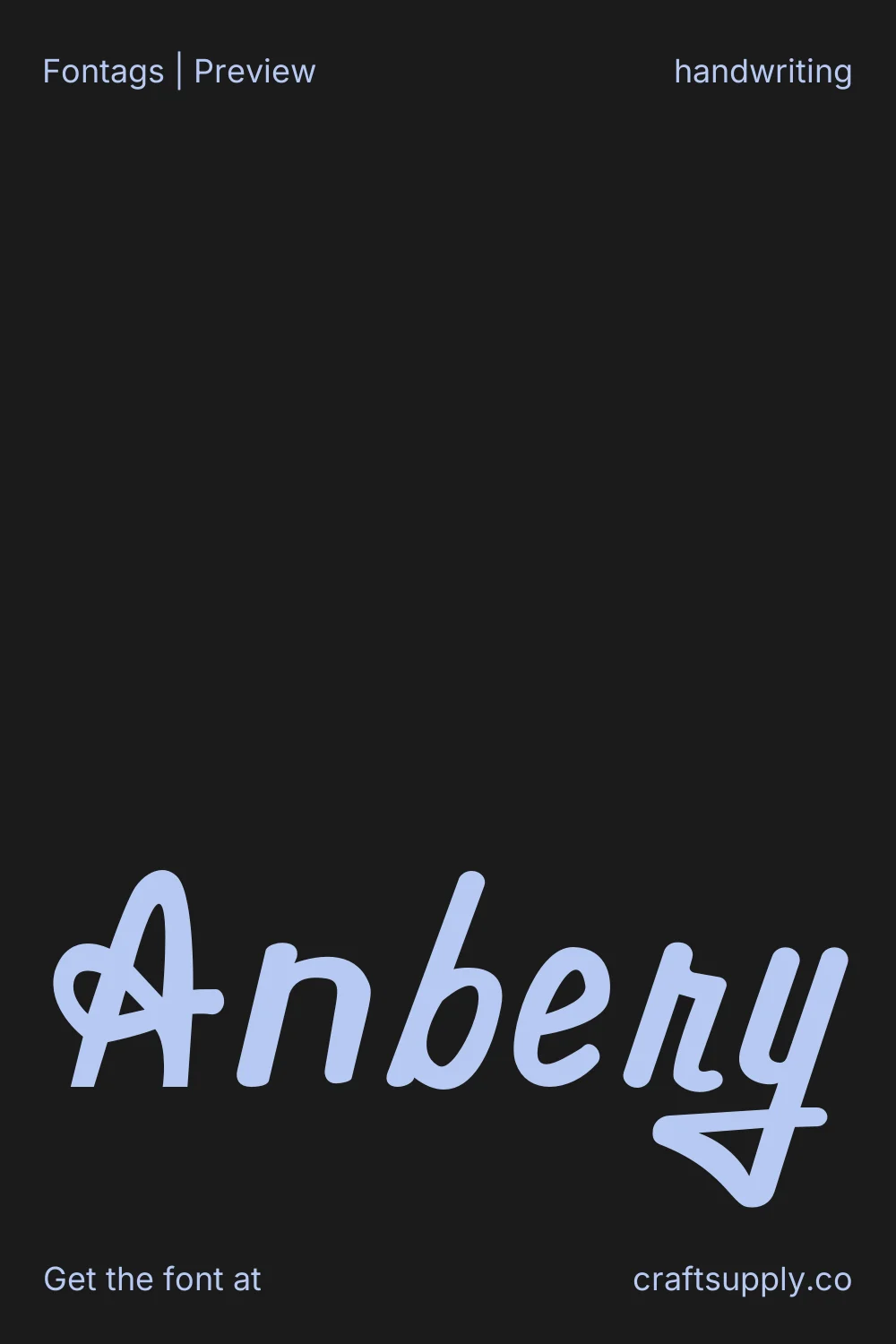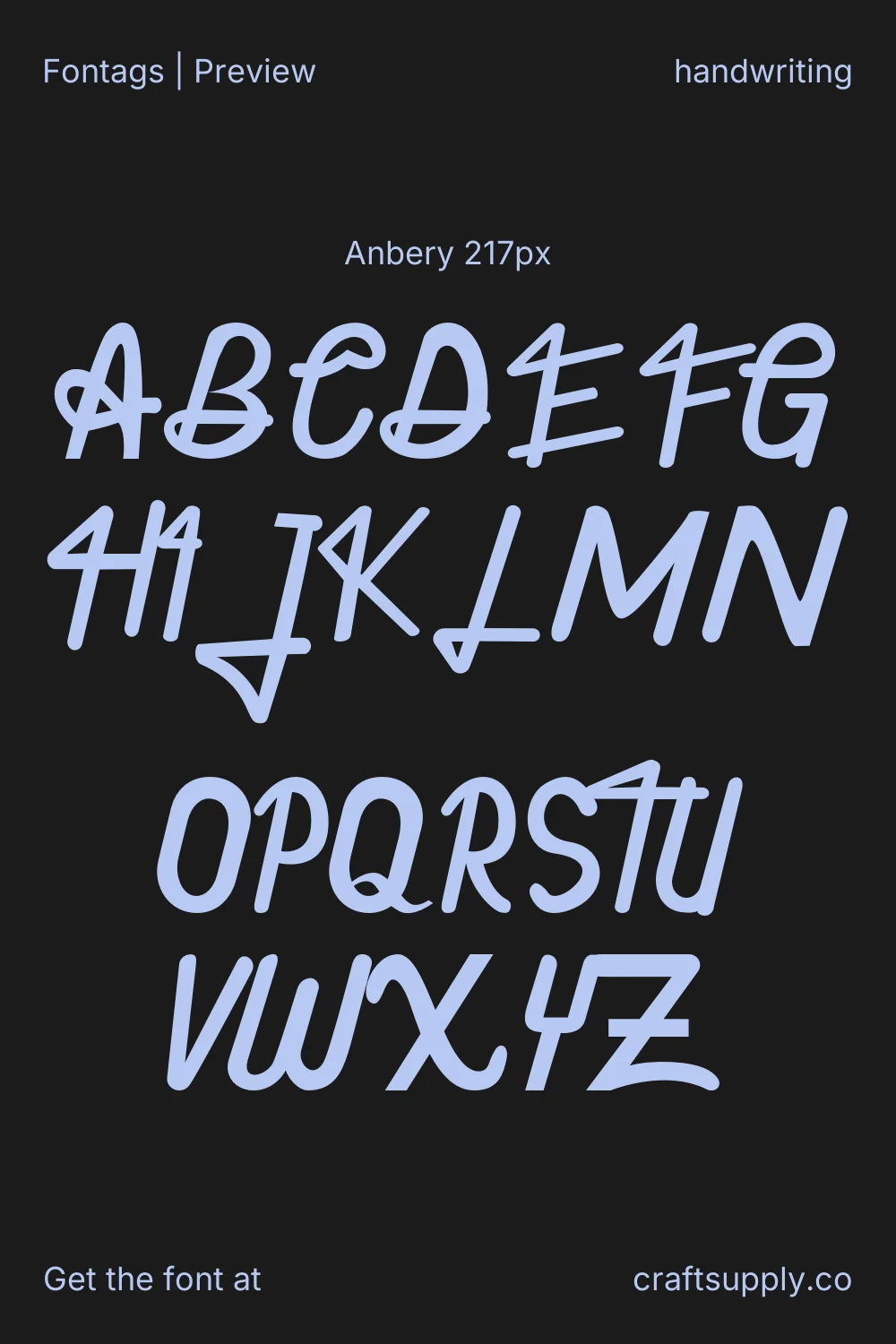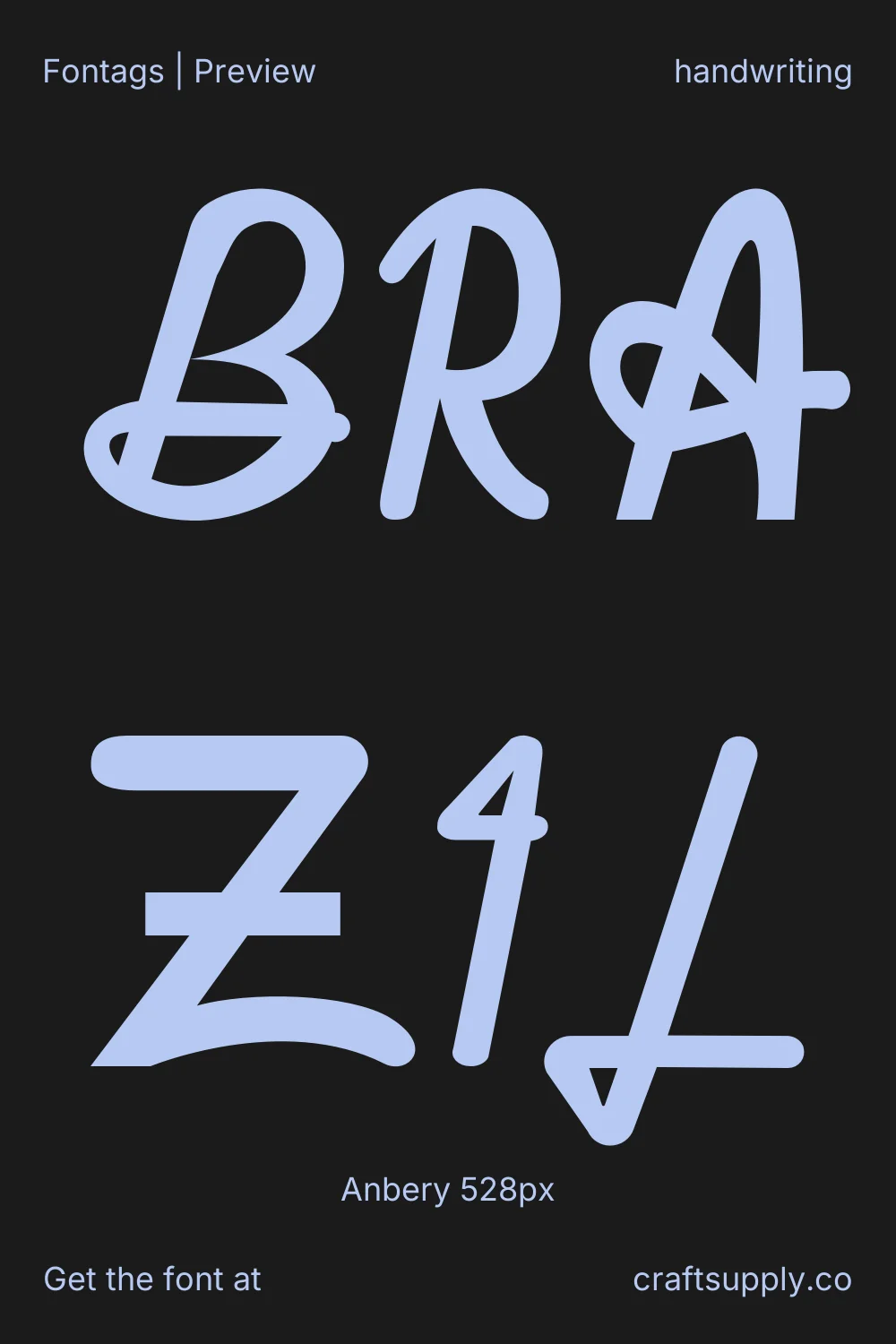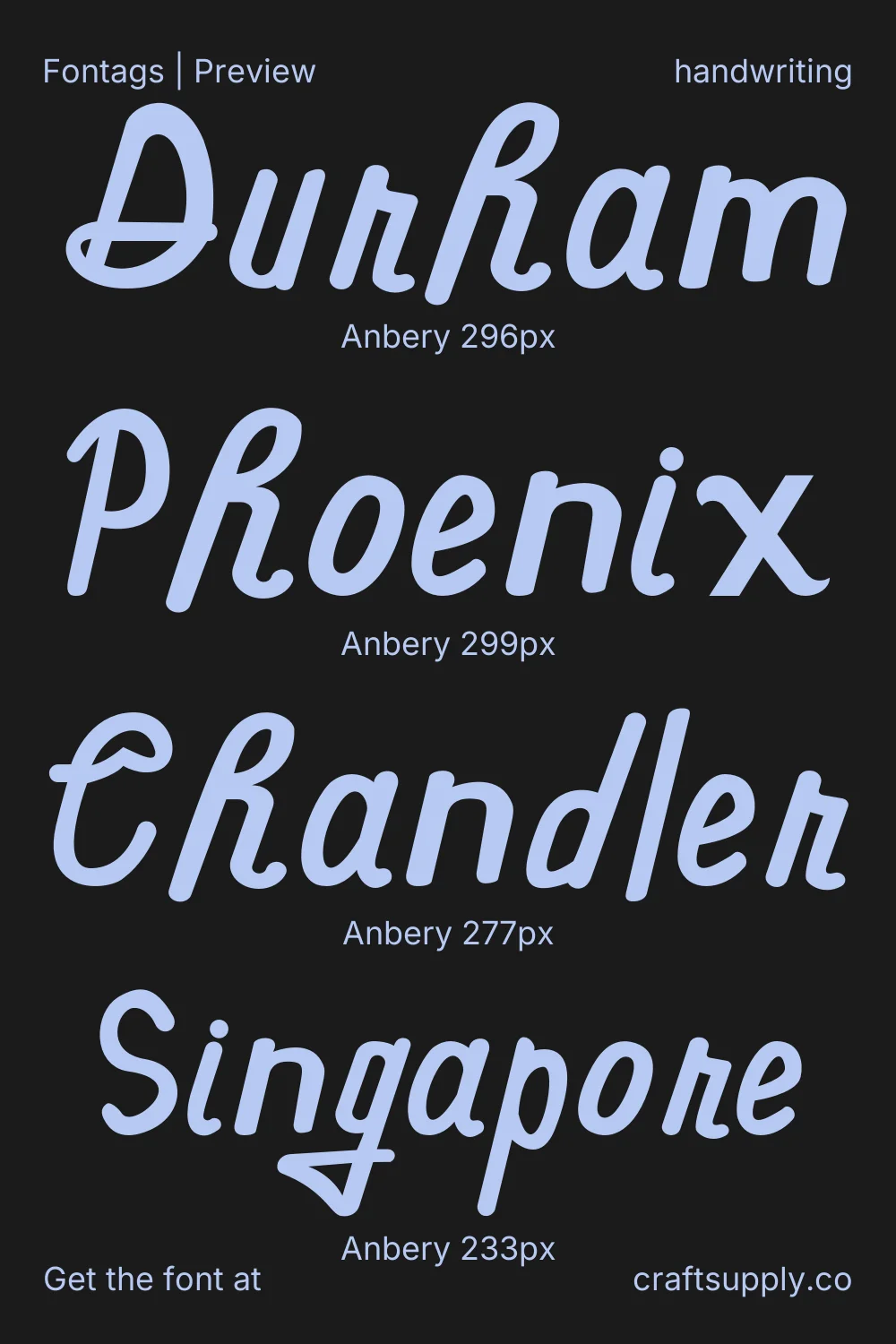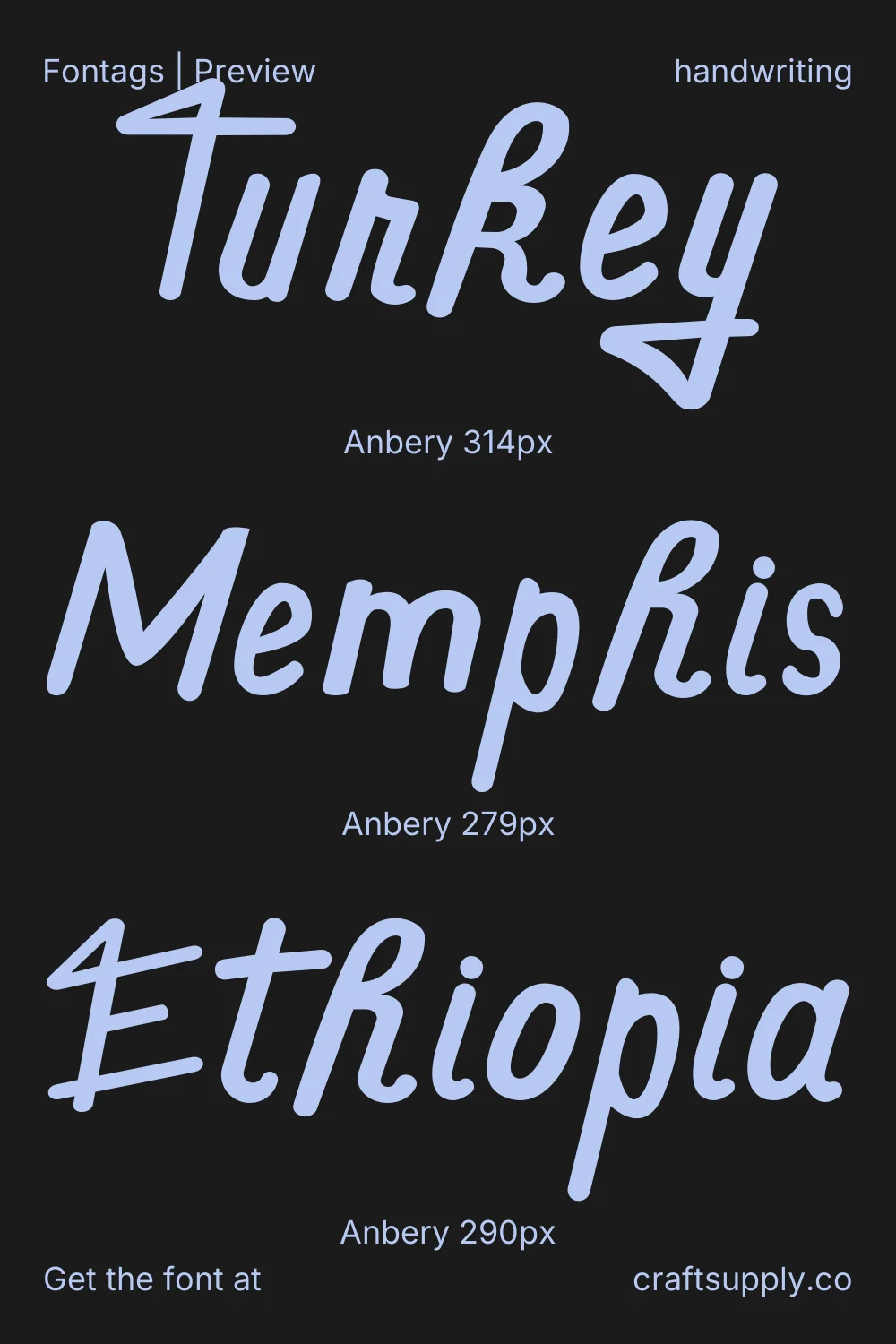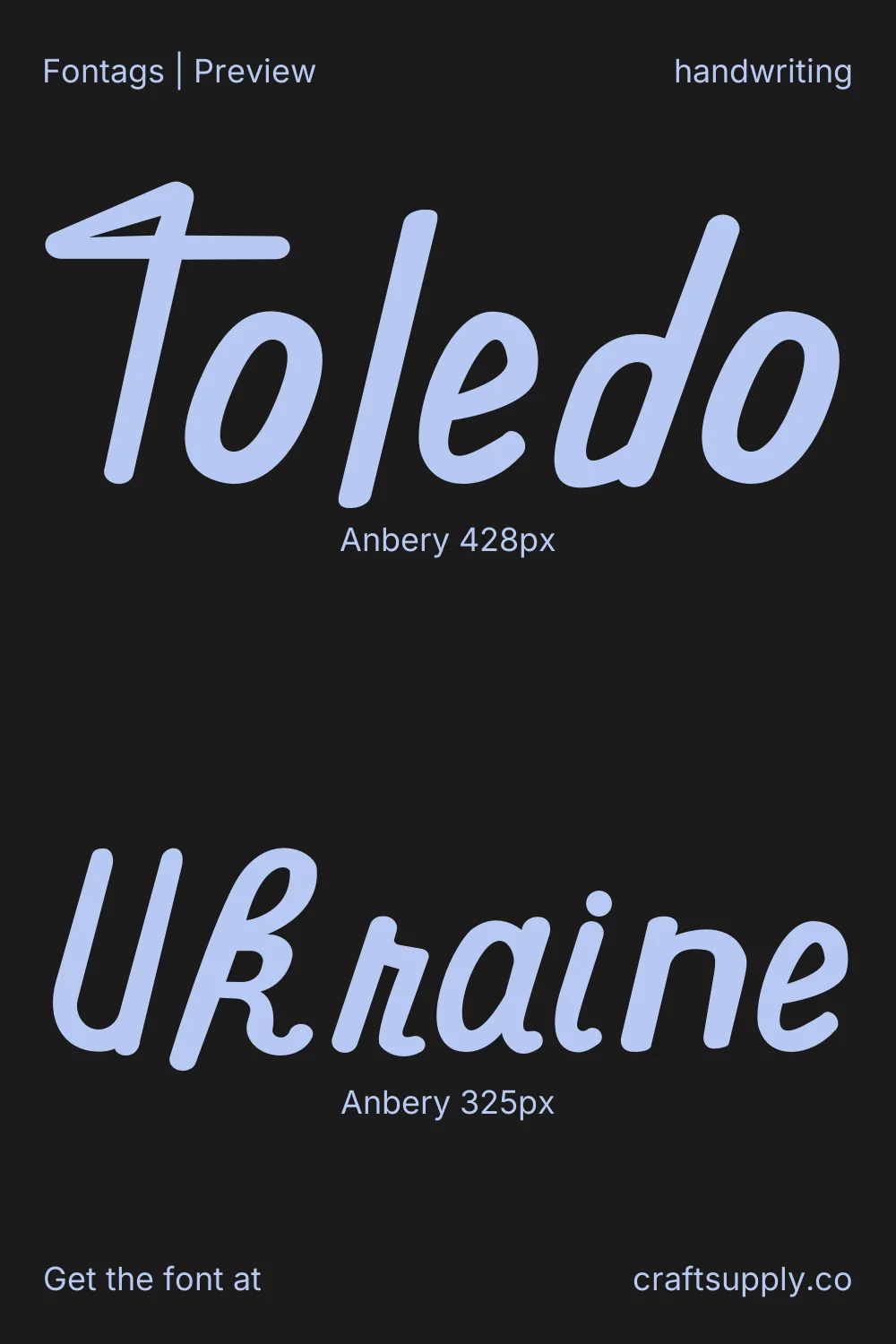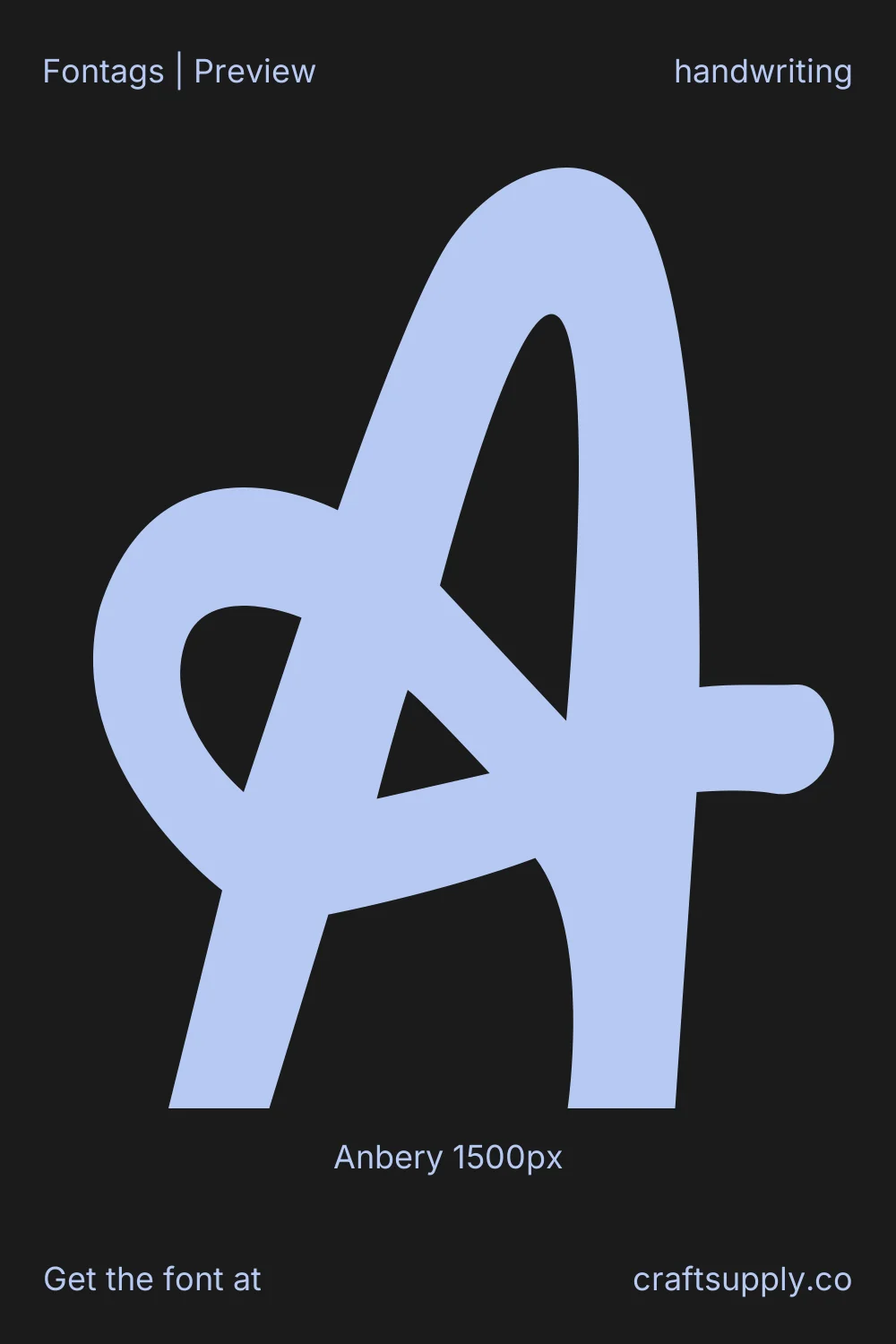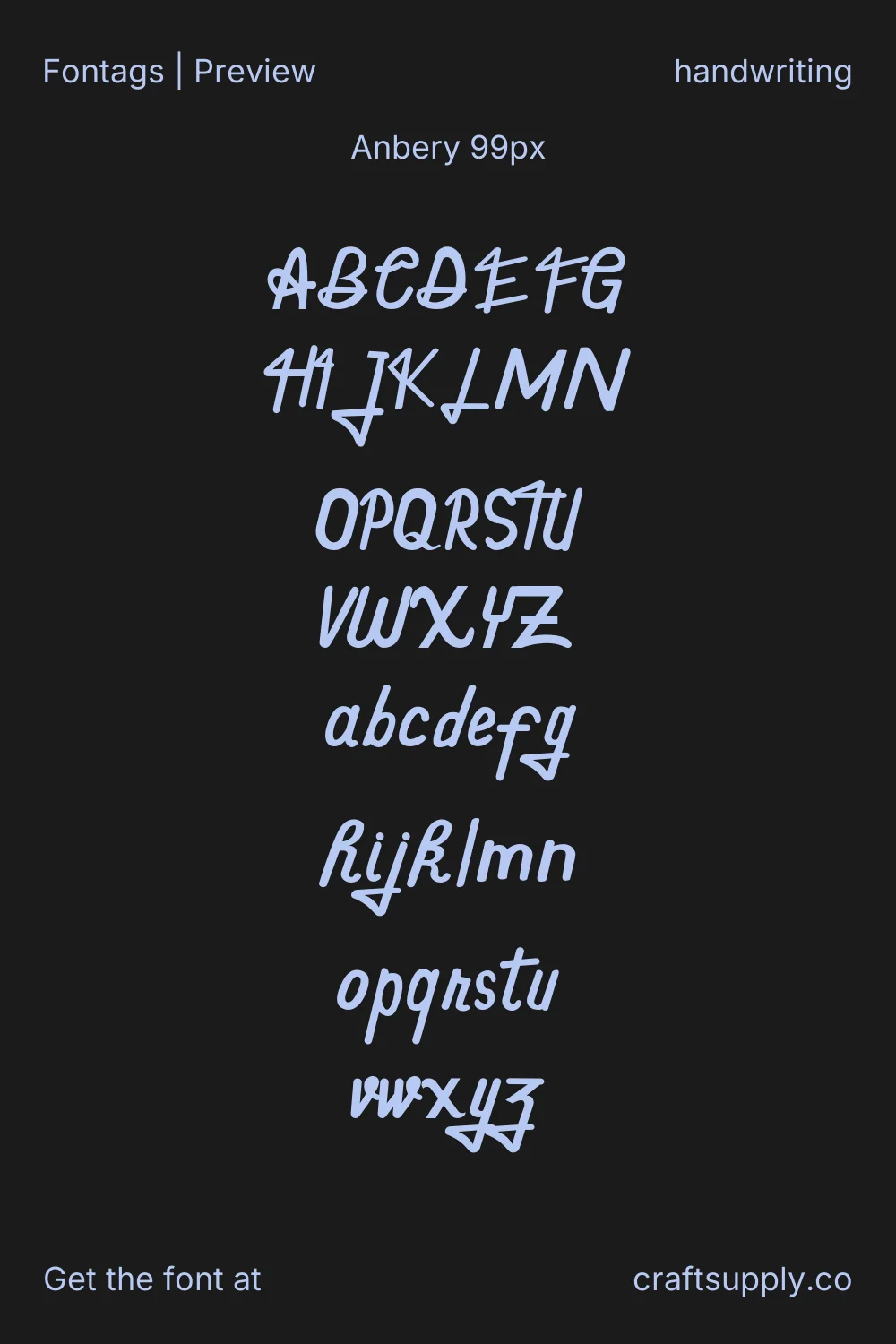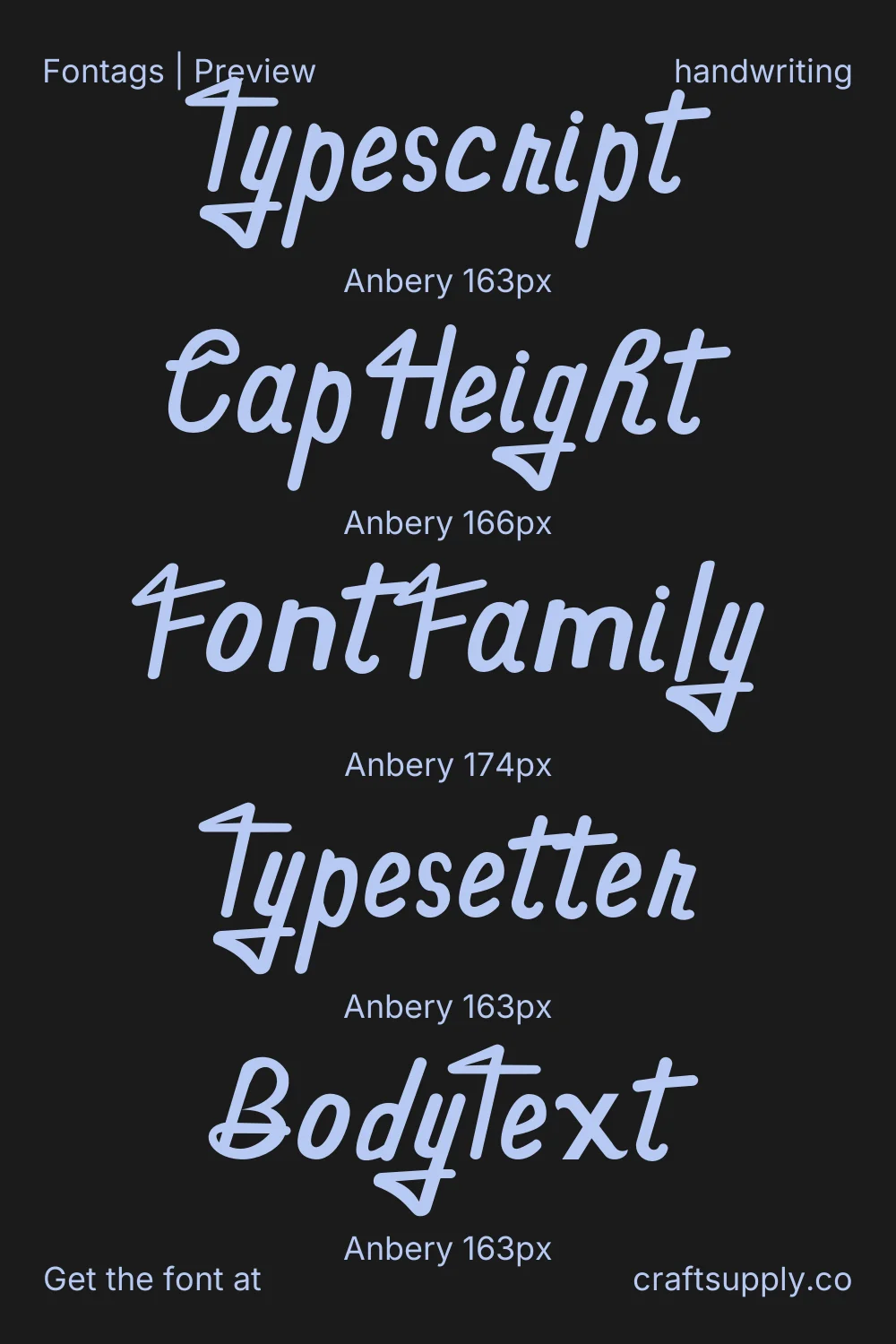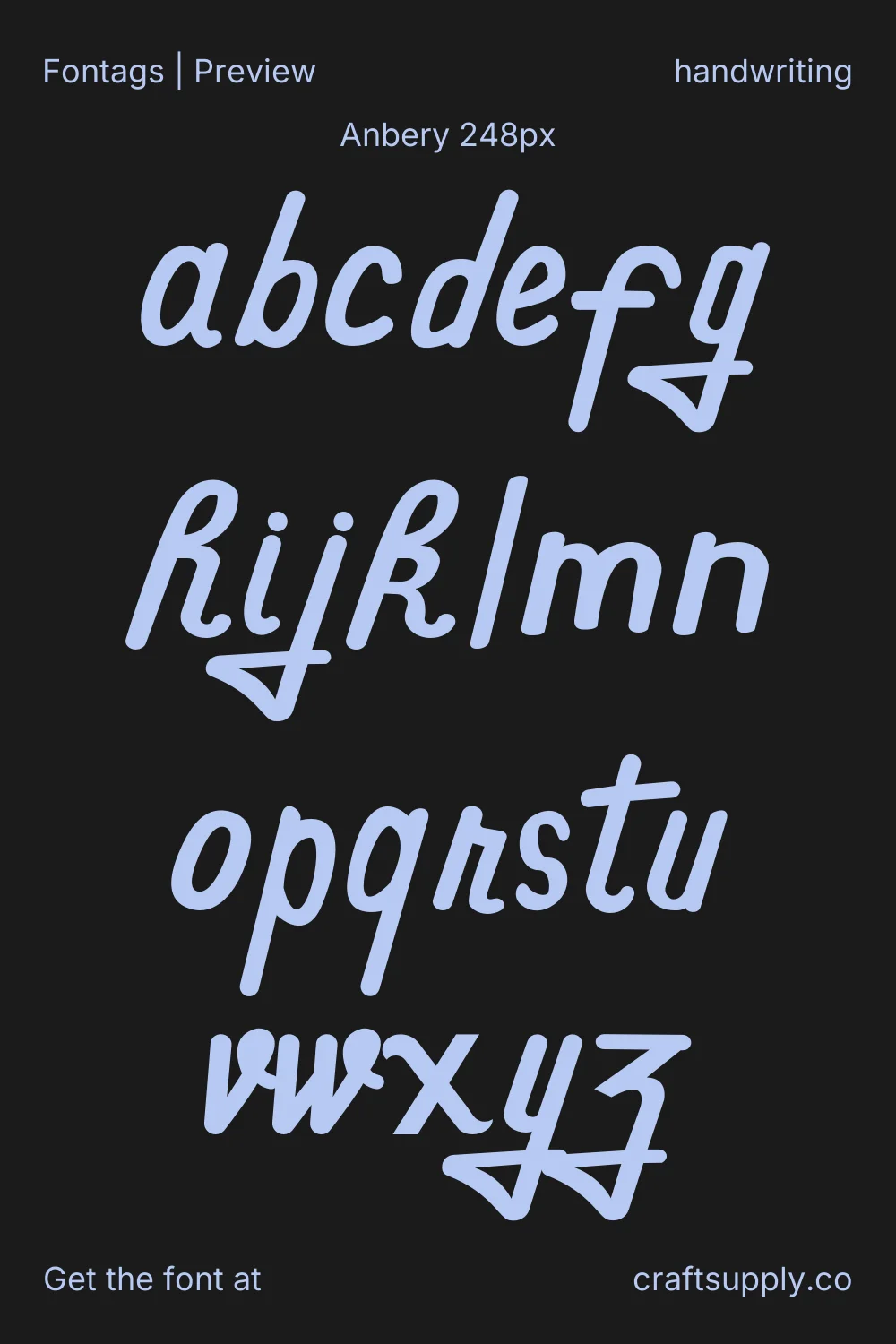
Anbery
Anbery is a playful handwriting script that brings a carefree, fun-loving energy to display projects. Its spontaneous strokes and charming letterforms convey individuality and lightheartedness, making it perfect for greeting cards, posters, and designs that need a whimsical touch. The typeface includes uppercase and lowercase characters, numerals, punctuation, and multilingual support.